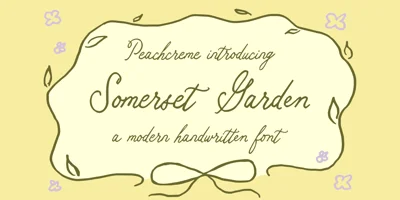
Somerset Garden Font
Somerset Garden Font is perfect for botanical garden signage, organic farm branding, landscape design portfolios, nursery business logos, gardening magazine layouts, and eco-friendly product packaging.
Somerset Garden Font is exciting because it beautifully captures the tranquil elegance of English countryside gardens, offering designers a refined typeface that embodies natural beauty, pastoral charm, and timeless horticultural tradition.
The Somerset Garden Font family includes natural variations: Somerset Garden Light, Somerset Garden Regular, Somerset Garden Medium, Somerset Garden Bold, and decorative floral ornaments inspired by traditional English garden aesthetics.
Cultivate elegance with Somerset Garden Font, a gracefully designed typeface that brings the serene beauty of traditional English gardens to your most enchanting design projects. This sophisticated font excels in creating memorable branding for botanical conservatories, heritage seed companies, artisanal tea merchants, and luxury garden centers that celebrate the art of horticulture and natural living. The thoughtfully crafted letterforms feature organic curves and refined proportions that communicate growth, harmony, and environmental consciousness while maintaining exceptional readability across all gardening and lifestyle applications. Perfect for nature photography books, sustainable living blogs, farmers market materials, and botanical illustration catalogs that need to evoke feelings of peace and natural abundance, this font connects with audiences who appreciate the restorative power of gardens. Each character blooms with gentle sophistication, making every text feel like a stroll through perfectly manicured English countryside. Somerset Garden Font transforms ordinary communications into inspiring celebrations of nature's timeless beauty and horticultural artistry.